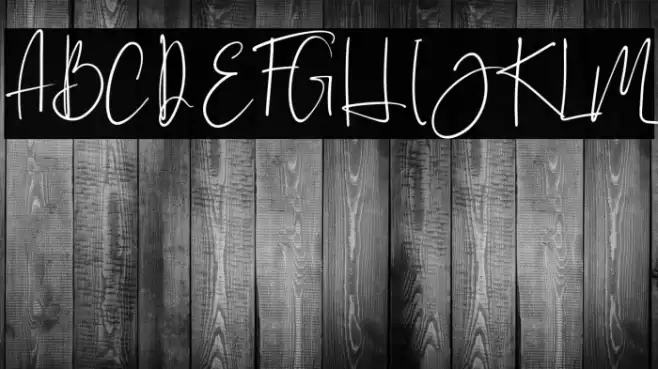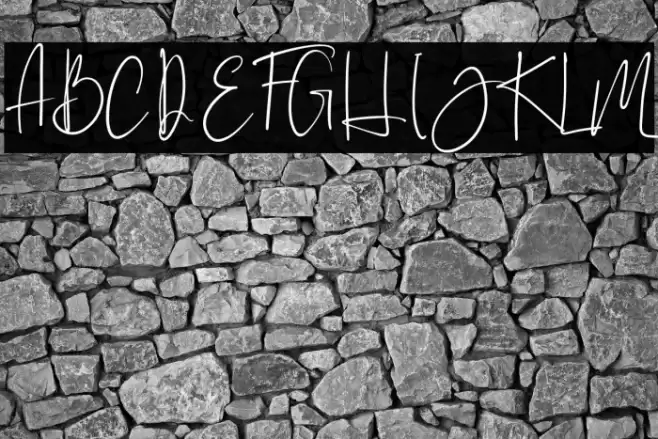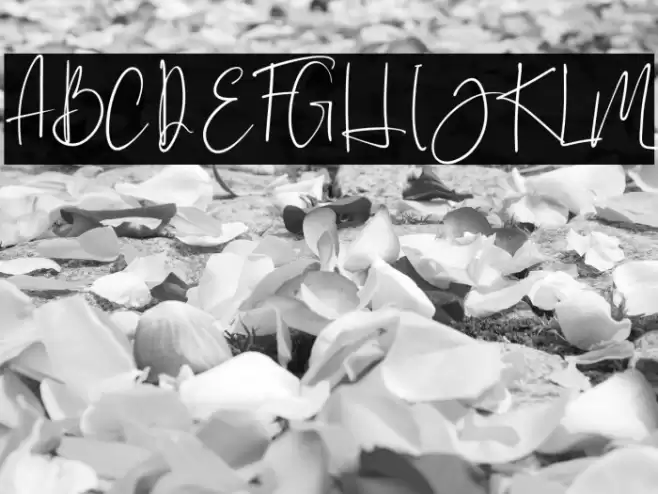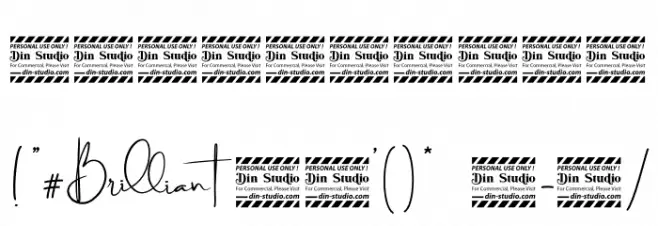
Brilliant - Personal Use Font
Brilliant - Personal Use Description
This font features a dynamic and expressive handwritten style, characterized by its fluid and cursive letterforms. The uppercase letters are tall and slightly narrow, with a playful and artistic flair, while the lowercase letters maintain a consistent flow with occasional loops and swashes. The font exudes a sense of elegance and creativity, making it suitable for projects that require a personal touch. Its unique style is complemented by a moderate contrast in stroke thickness, adding to its visual interest. The character spacing is relatively tight, enhancing the cohesiveness of the text.
A dynamic and expressive handwritten font with fluid cursive letterforms from Uncategorized fonts.
- Proposed Projects: Ideal for wedding invitations, greeting cards, personal branding, and creative projects that require a personal and artistic touch.
- Character Spacing: Tight
- Use Case: Logos, Headlines, Personal projects